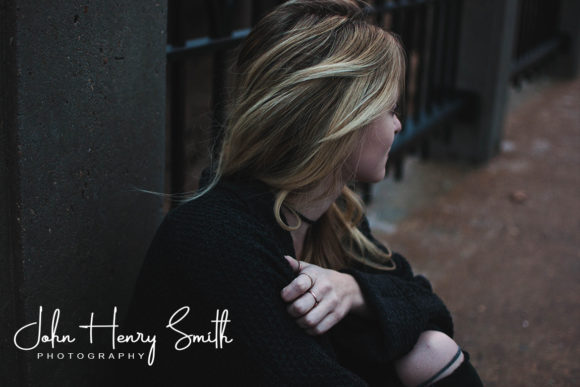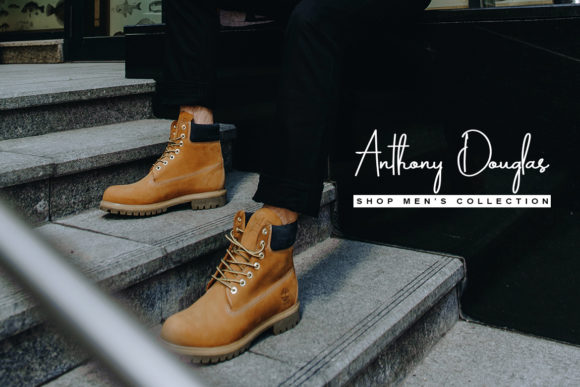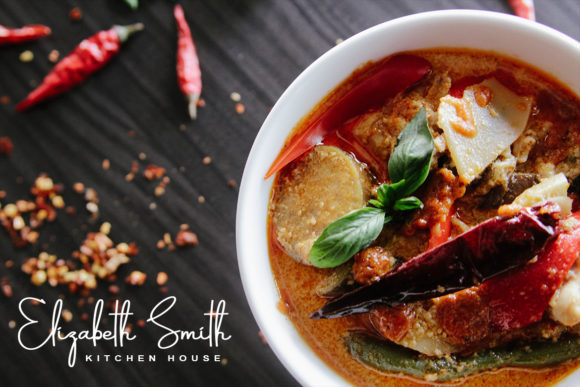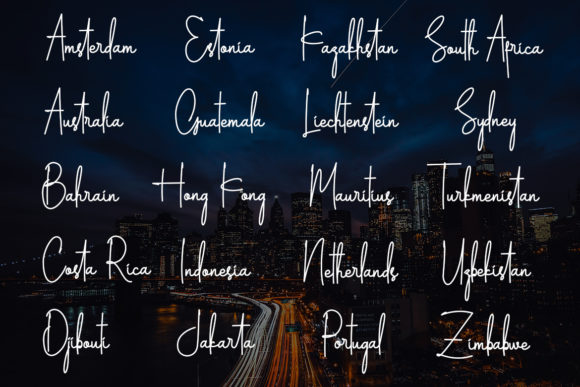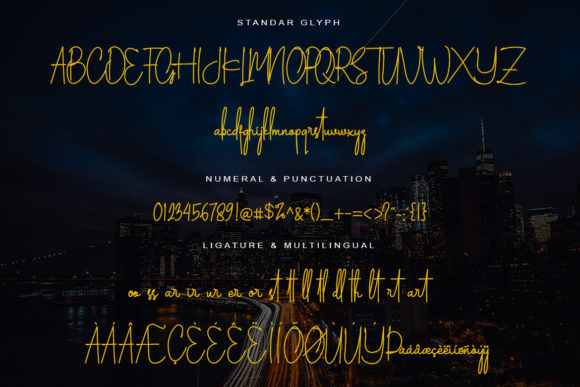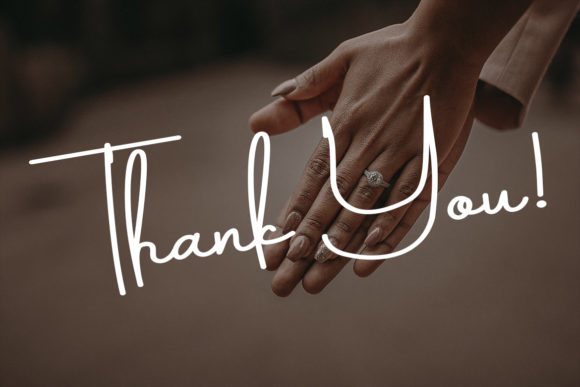
Introduction to Silverstain Font
The Silverstain is a striking signature font.
It has a natural handwritten feel and is perfect for adding a personal touch to your designs It can be used for logos, fashion desings, magazines, posters, quotes, and much more.